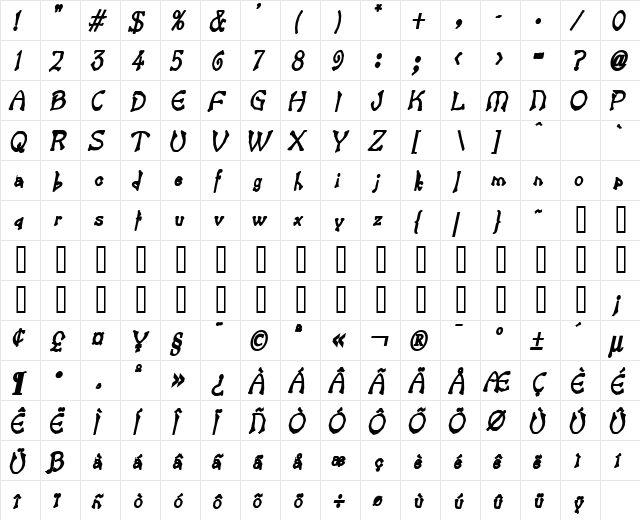
Bart Thin Heavy BoldItalic
Design Context for Bart Thin Heavy Typeface
Bart Thin Heavy is a composed and adaptable typeface that performs quietly and consistently across a wide range of design contexts. The slanted form adds forward momentum and visual energy. Its bold stroke weight gives it real presence on the page.
Pro Tip: Use Bart Thin Heavy for emphasis, pull quotes, and subheadings where its slanted energy can add rhythm to the layout.